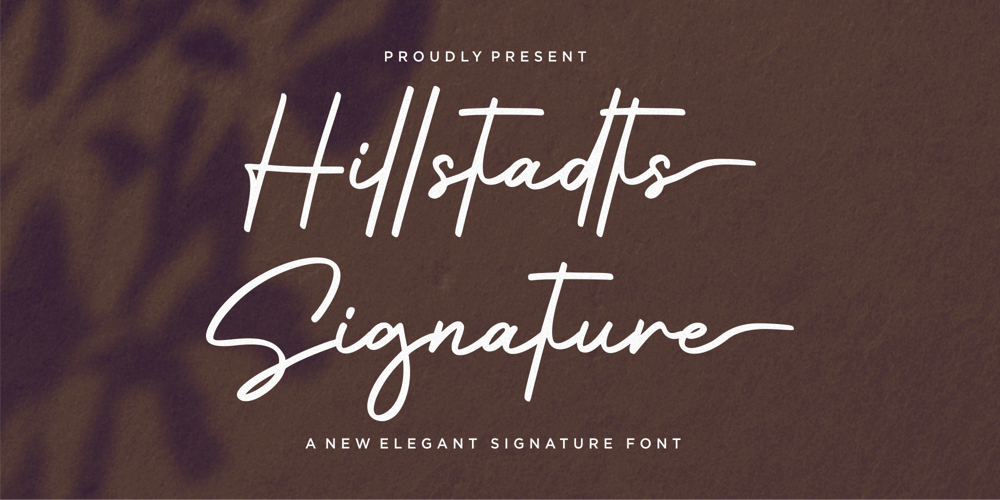
Hillstadts Signature
Hillstadts Signature font
Hillstadts Signature Font Family was designed by Annas Rifky Anhar and published by Bhubbiberry Studio. Hillstadts Signature contains 1 styles and family package options. Hillstadts Signature is an Elegant Signature Exclusive Font that includes 70+ Stylish scratch lines and Swash Alternate.Hillstadts Signature is perfect for product packaging, branding projects, megazine, social media, weddings, or just used to express words above the background.